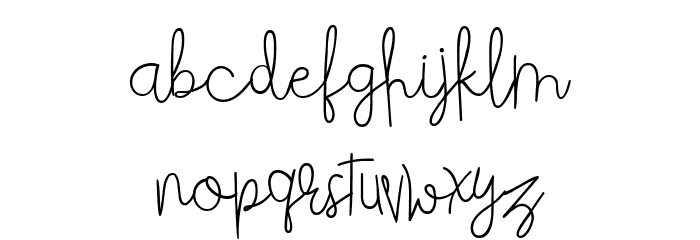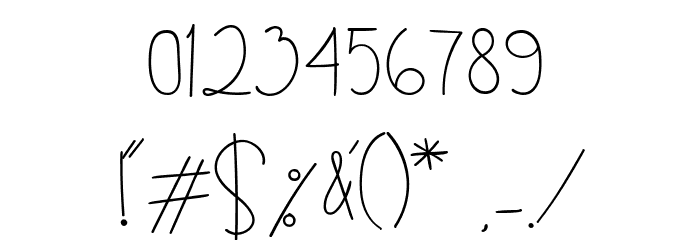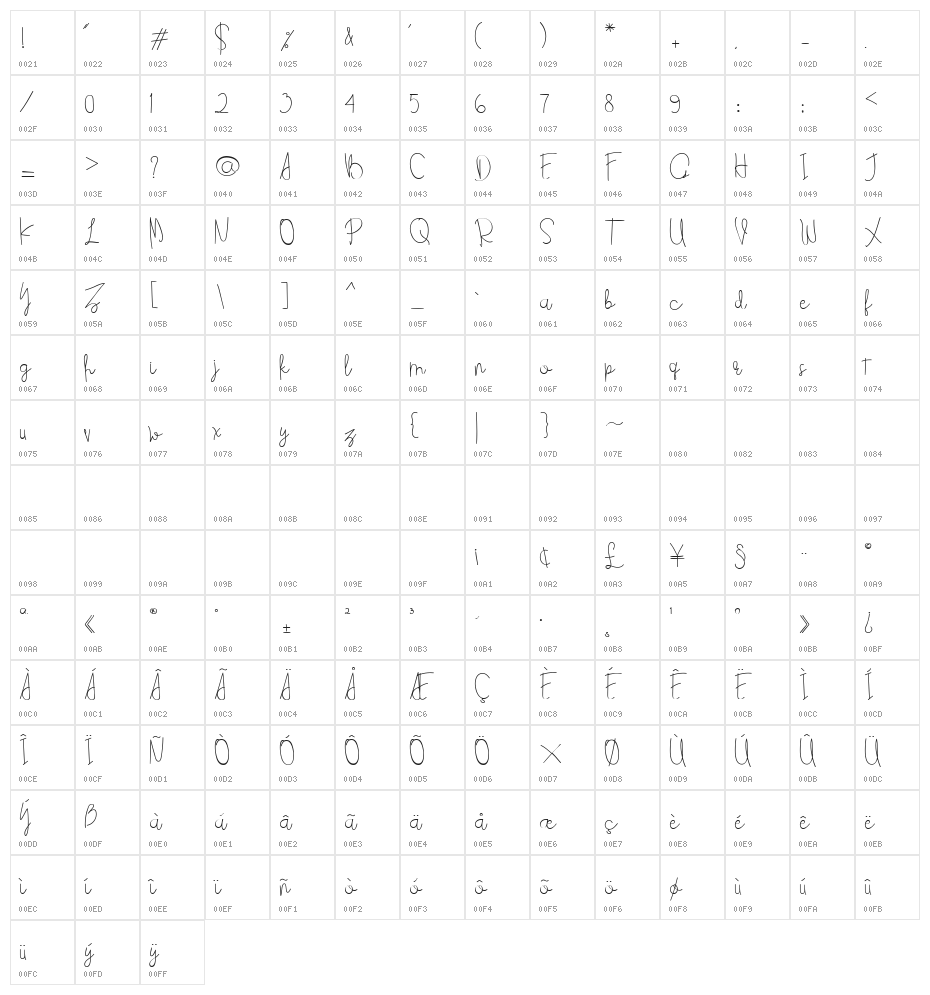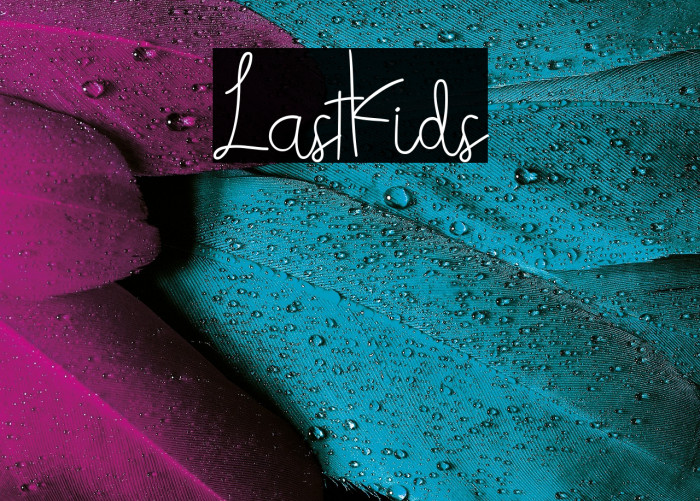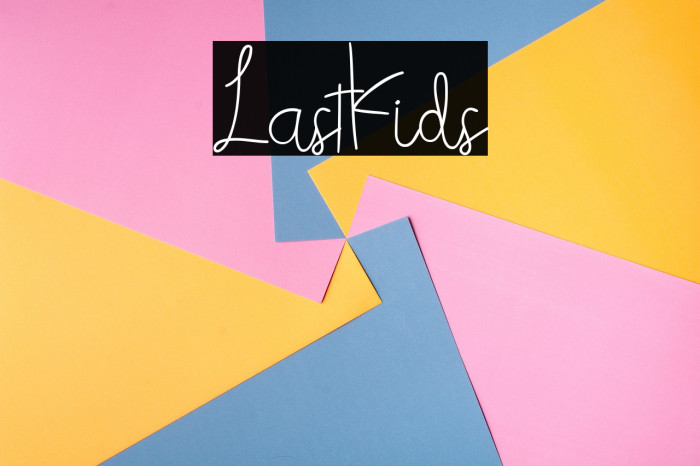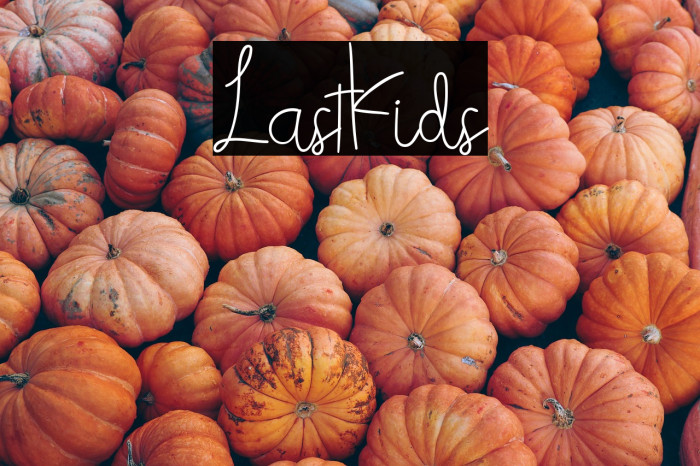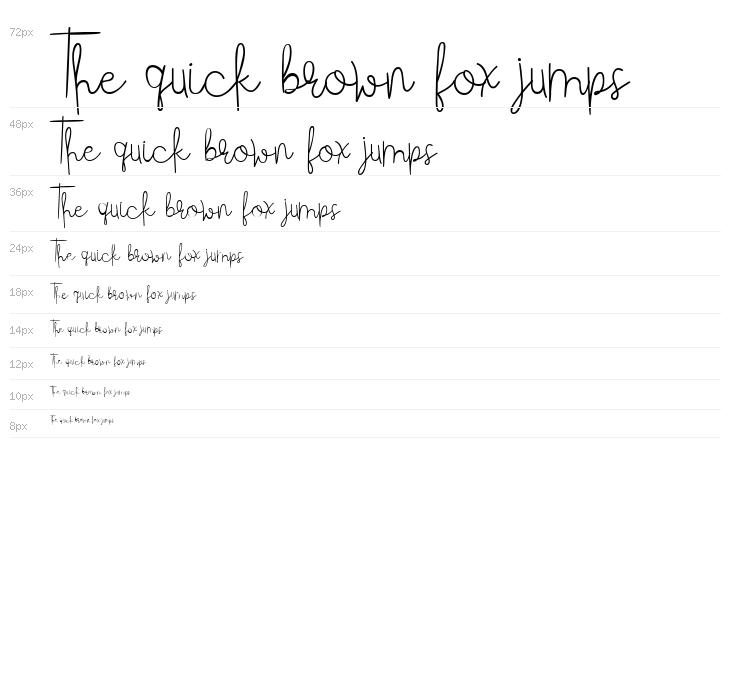
LastKids Font
This playful and whimsical font features a handwritten style with a casual, flowing script. The characters are slightly irregular, giving it a personal and informal touch. The uppercase letters are tall and narrow, while the lowercase letters maintain a consistent baseline with gentle curves. Numbers and special characters are designed to match the playful aesthetic, making it suitable for creative projects. The overall appearance is light and airy, with a sense of movement and spontaneity.
A playful, handwritten script with a casual and whimsical style.
- Proposed Projects: Ideal for greeting cards, children's book covers, playful branding, and social media graphics.
- Category: Handwritten
- Weight: Light
- Overall Style: Playful
- Use Case: Logos, Headlines, Invitations